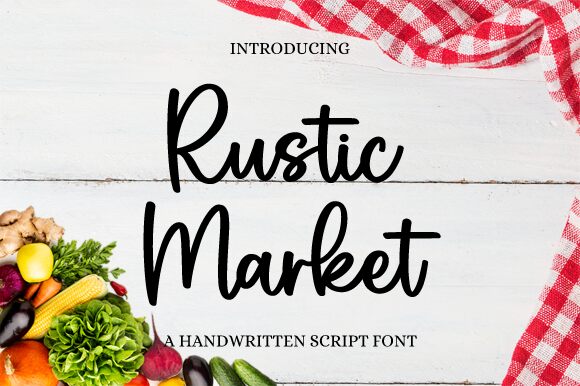
Rustic Market
Rustic Market, designed by Graphix Line Studio, embodies the charm of artisanal handwriting with its semi-light and elegant style. This font's delicate flow and well-balanced characters evoke a sense of warmth and authenticity, making it a perfect choice for projects that require a personal touch.
Its versatility allows it to seamlessly blend into an array of design landscapes—from wedding invitations and branding materials to packaging and social media graphics.
Let Rustic Market add a stroke of sophistication and handcrafted appeal to your creative endeavors.